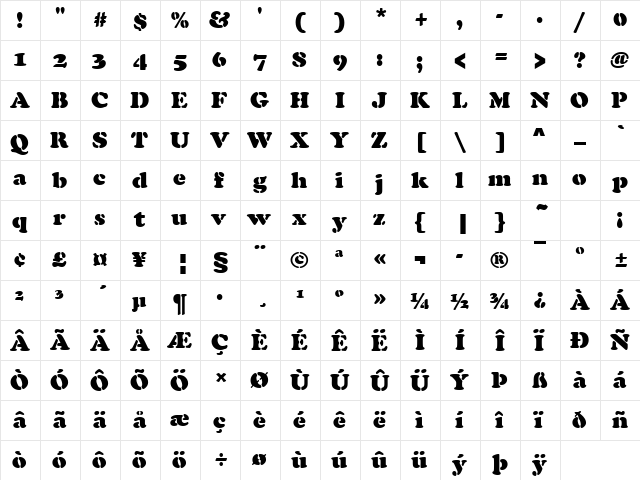
CooperSteD Regular
Design Context for CooperSteD Typeface
CooperSteD offers clean, dependable letterforms without strong stylistic allegiance, making it a practical choice for designers who need flexibility.